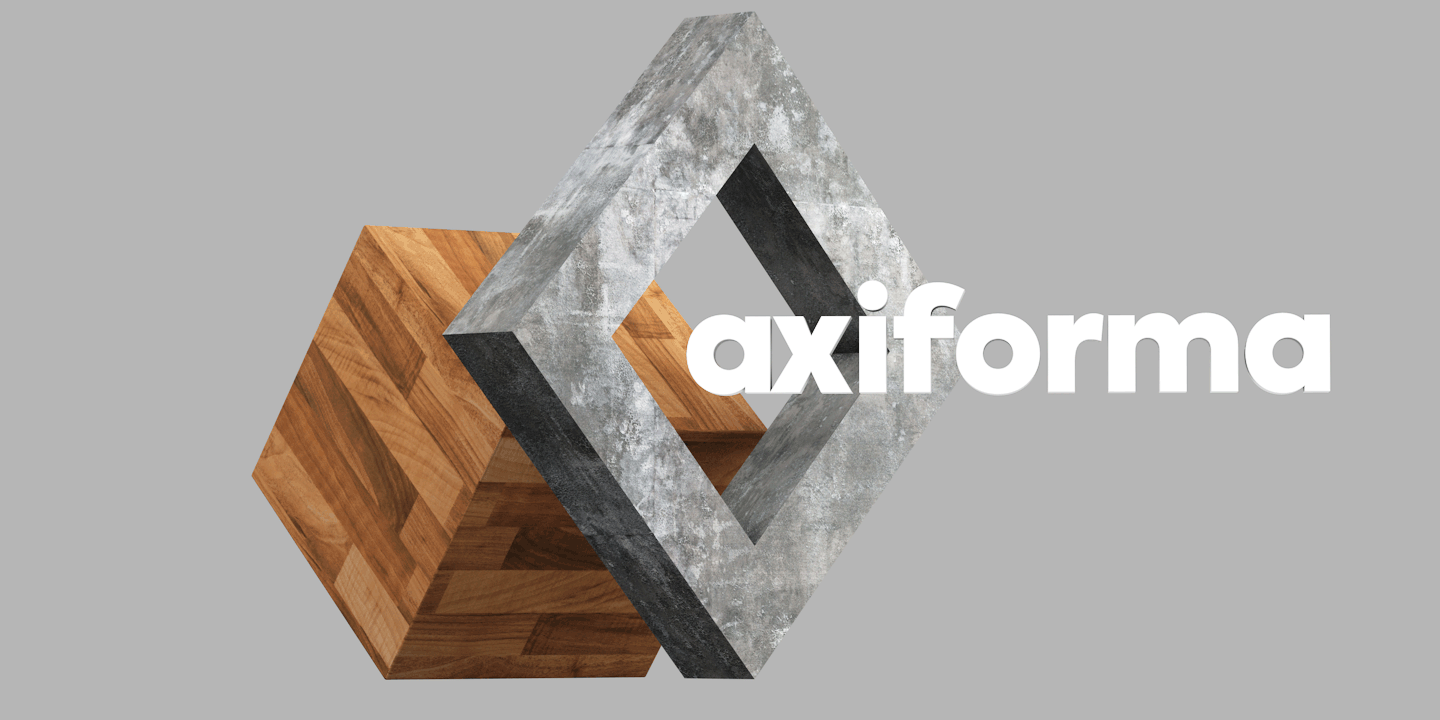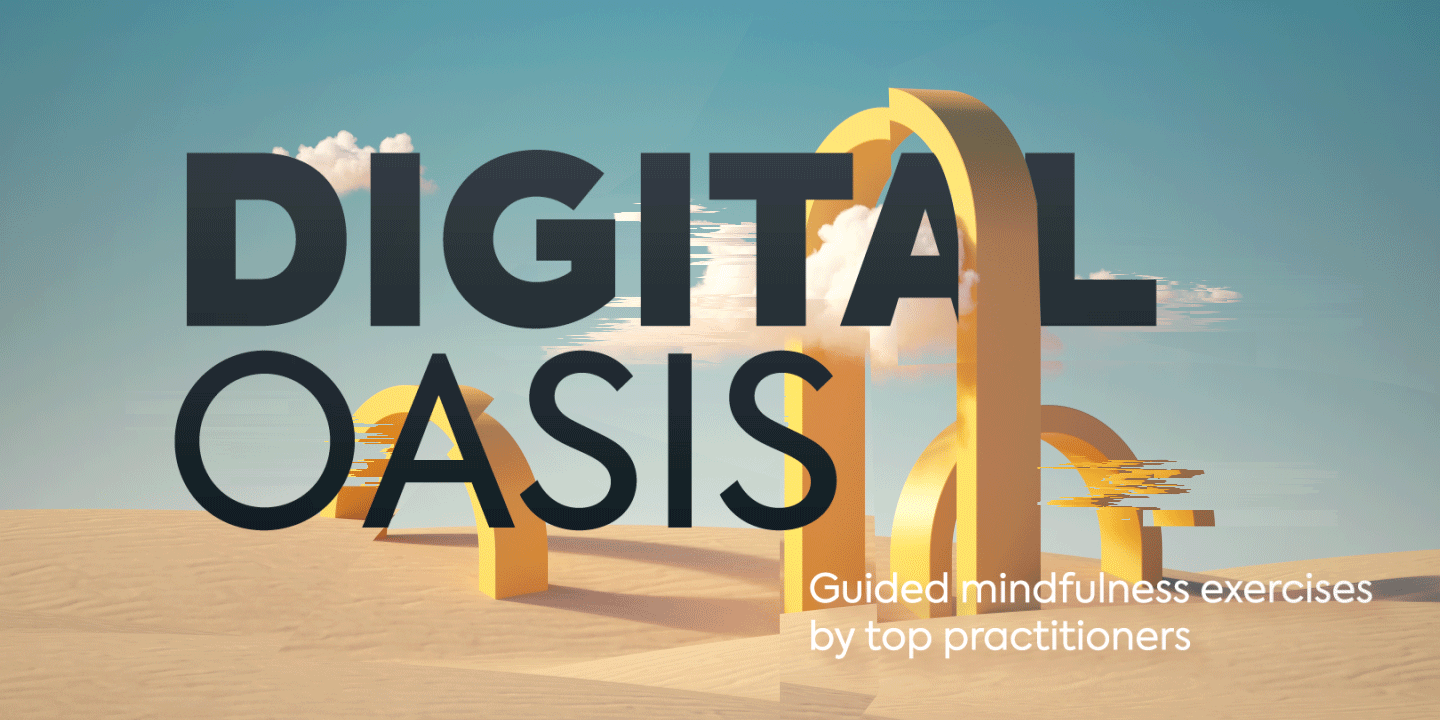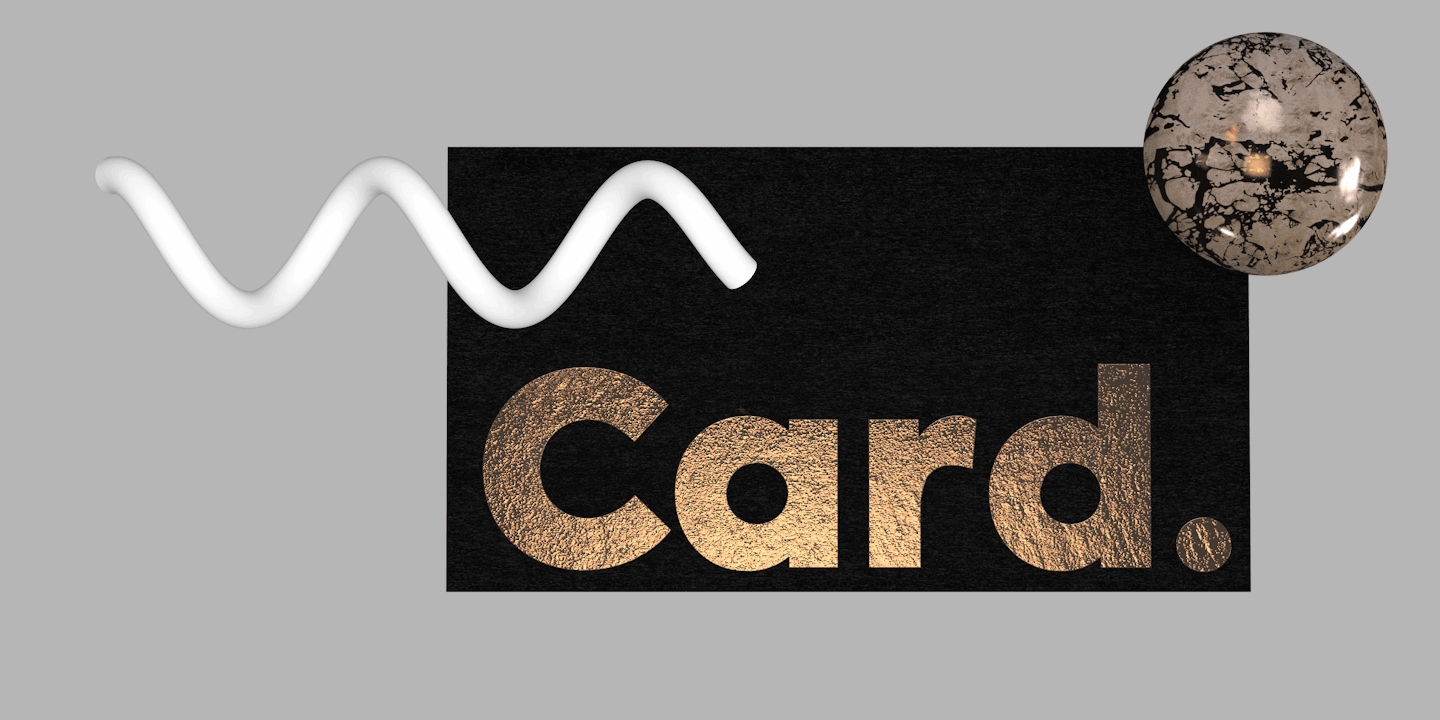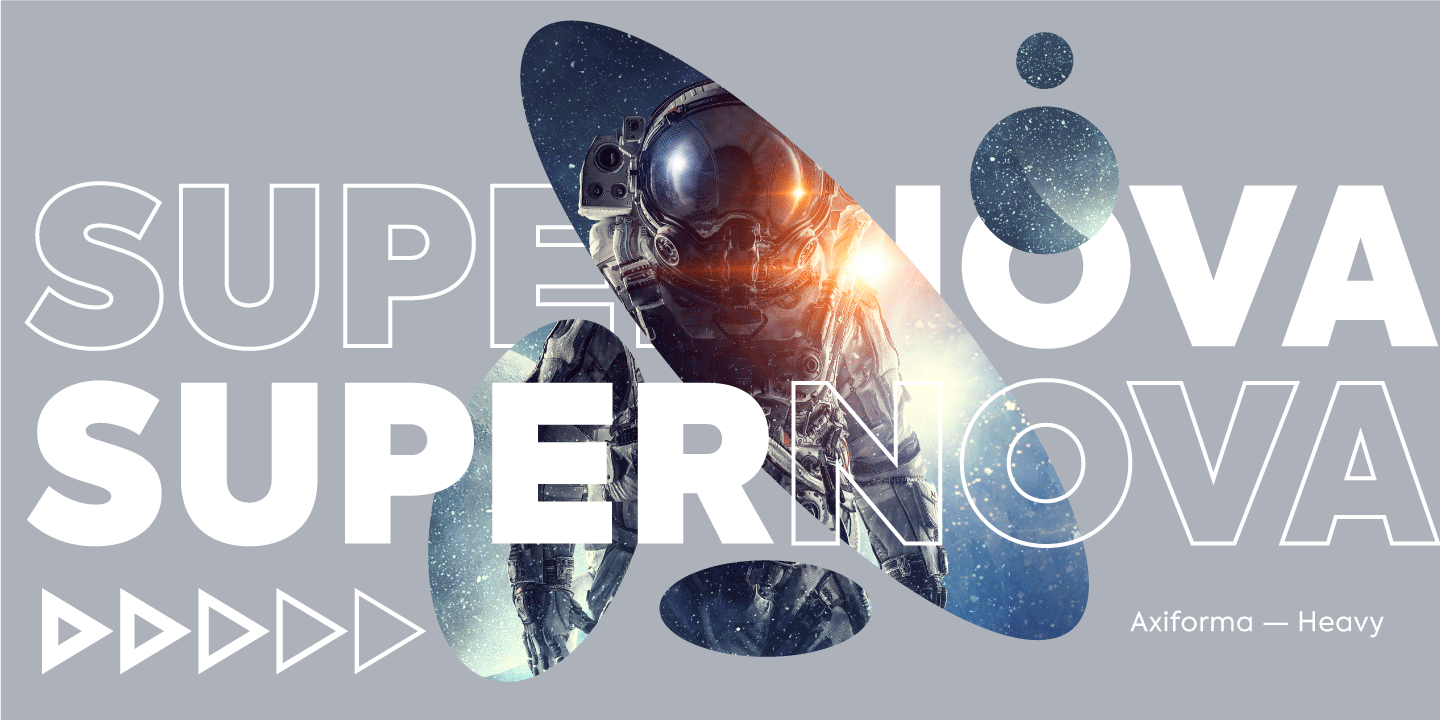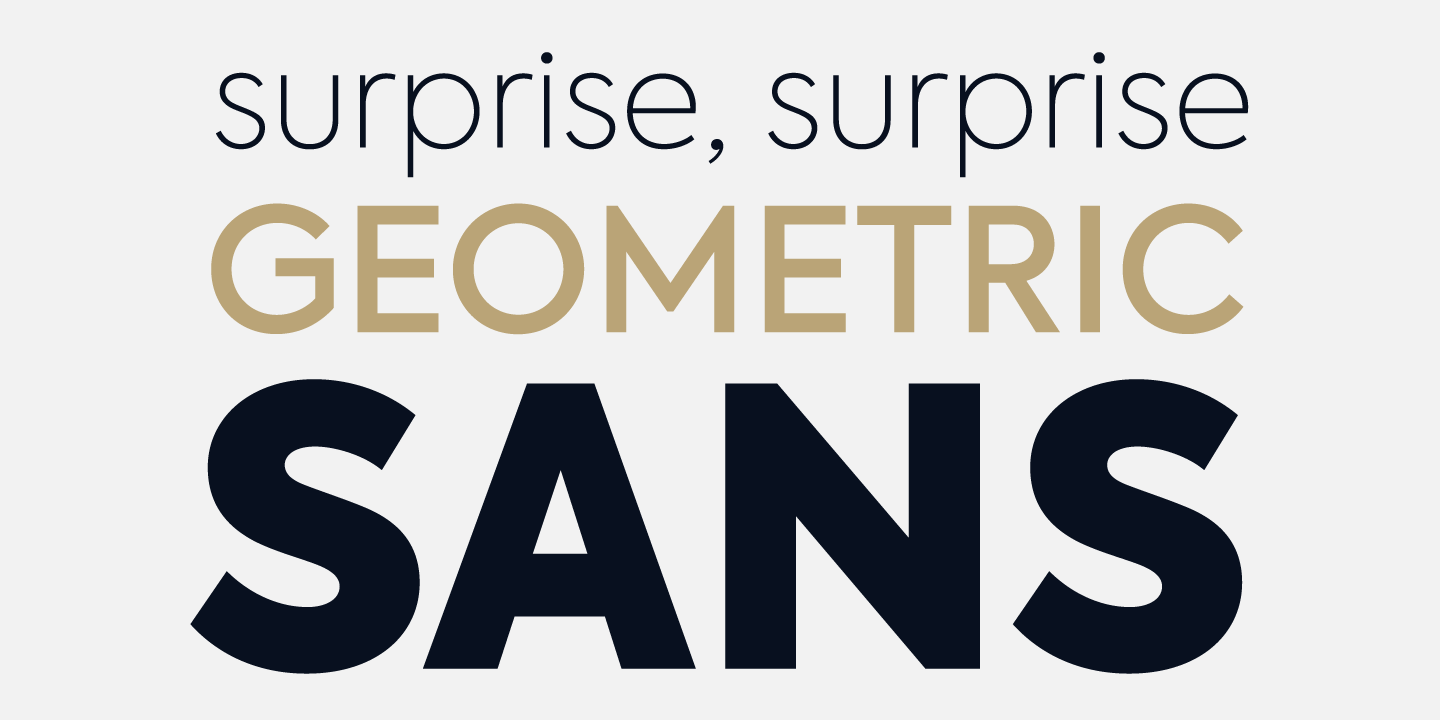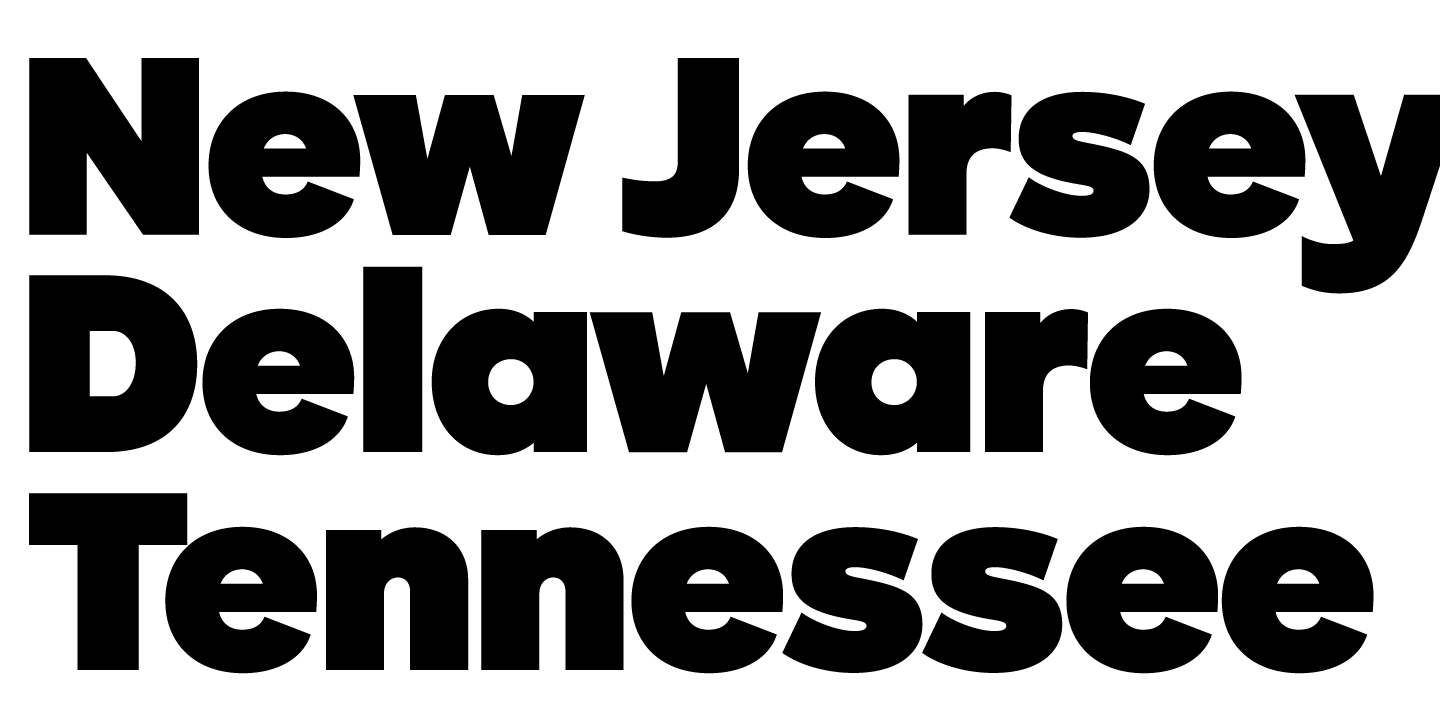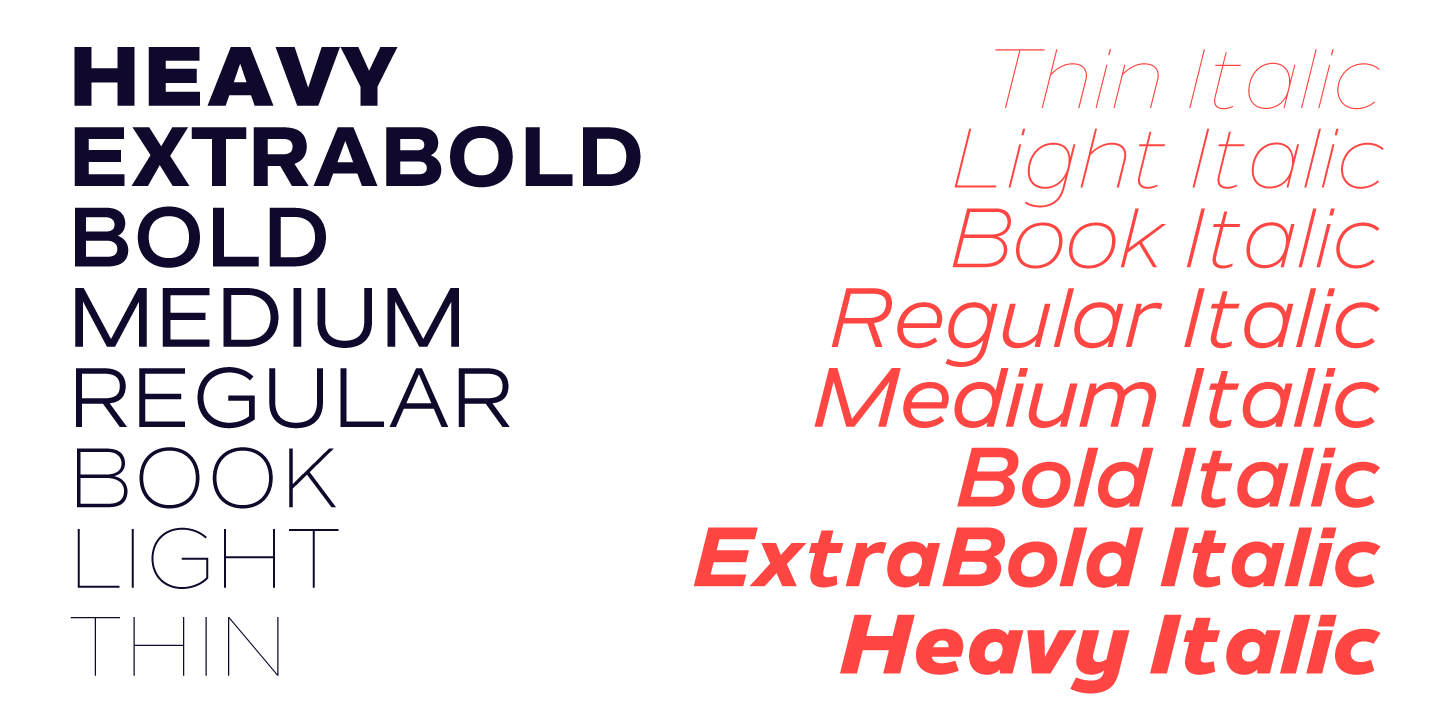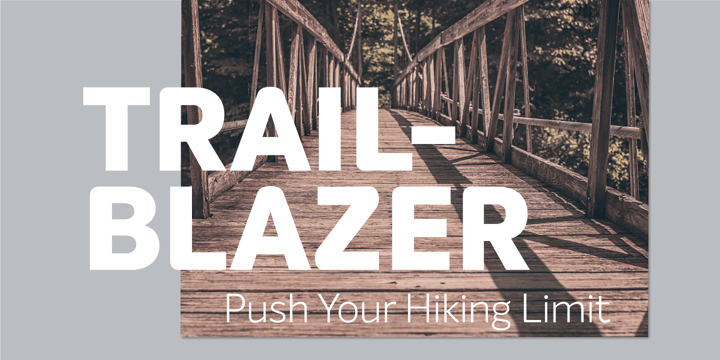
My background is in corporate identity and branding. One approach that I try to follow in the work that I do is my strive for subtlety and simplicity. The great Dieter Rams summed this up much better than I can in his phrase “Less, but better”. The catch of course is that this is easier said than done, and it requires you to be more attentive and strategic about what is essential and what is not.
The other concept is that of the ‘golden mean’, first coined by Aristotle to judge and evaluate character in the people around us, but also applicable to producing any work of consistent value. In people, qualities such as courage, liberality, friendliness, wittiness and modesty are incidentally all attributes that a good typeface should posses. I find this relation both daunting and intriguing, but also a good base for exploring and developing typefaces that are timeless and universally appealing.